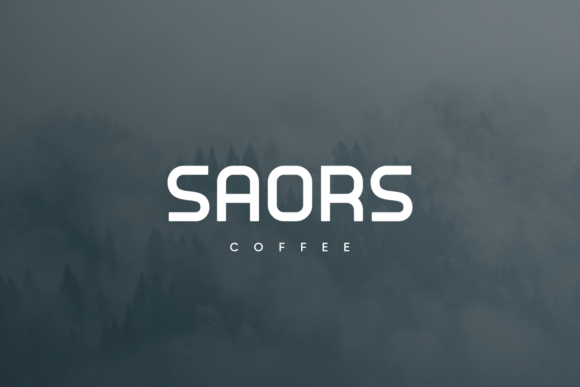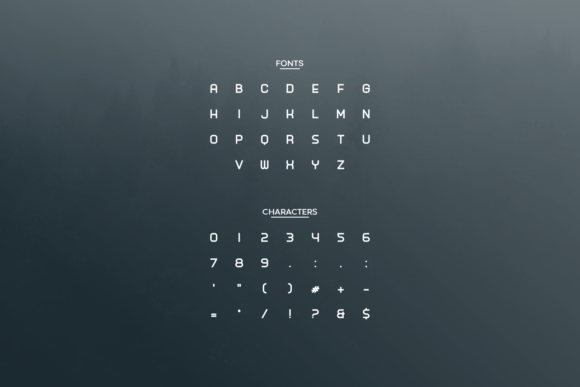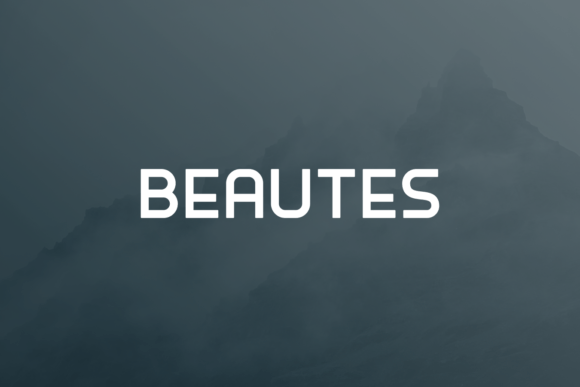
Introduction to Baspaos Font
Baspaos is a cool and neat display font that works great for headlines, branding, and logo designs.
Coming with a simple yet modern and elegant look, the smooth angular shape makes it look classy .